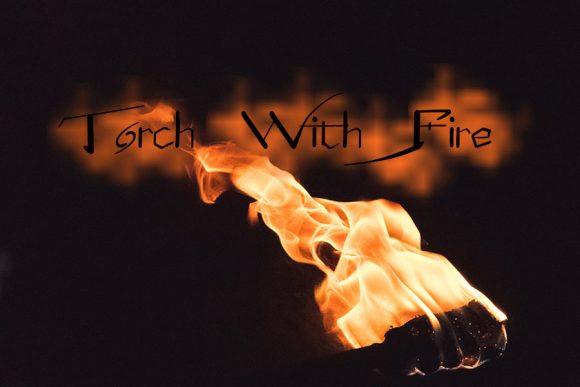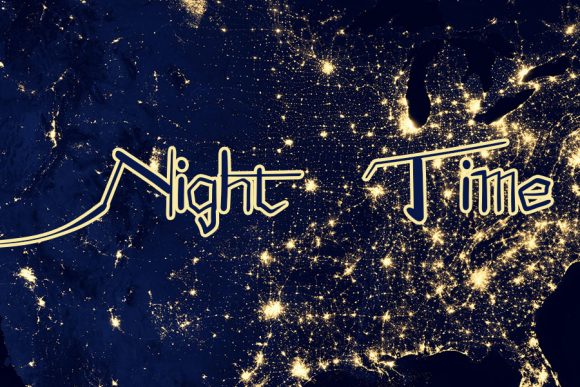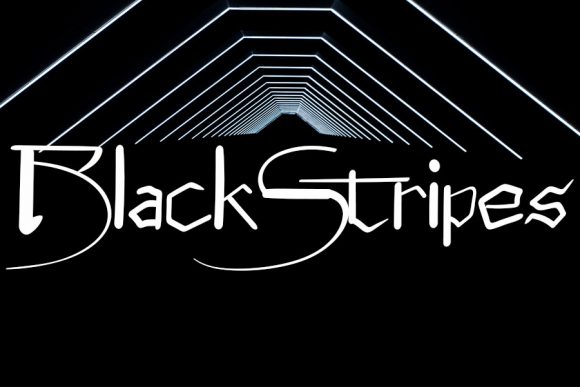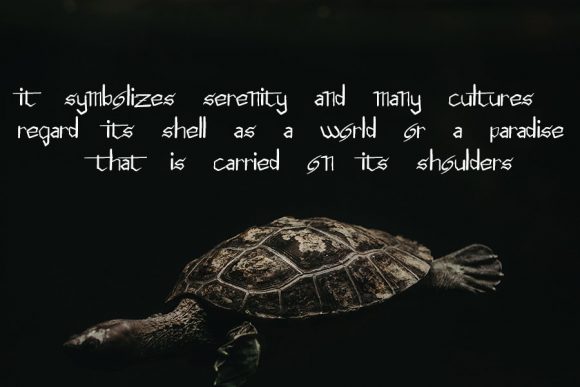
Introducing Earth Below Font: A Modern Display Font with a Genuine Touch
Are you tired of using the same old fonts for your designs? Look no further than Earth Below Font, an incredibly unique and modern display font that’s perfect for adding a touch of authenticity to your work. Whether you’re designing a website, creating business cards, or crafting other visual materials, Earth Below Font is the ideal choice.
What Makes Earth Below Font So Special?
Earth Below Font stands out from the crowd with its distinctive, hand-crafted design. The font features a modern, earthy feel that’s perfect for designers and crafters looking to add a touch of personality to their work. With its clean lines, subtle imperfections, and organic feel, Earth Below Font is sure to capture the attention of your audience.
Key Features of Earth Below Font
• Unique and Modern Design: Earth Below Font boasts a fresh, contemporary design that’s perfect for designers looking to stay ahead of the curve.
• Hand-Crafted with Love: Each letter has been carefully crafted to ensure a personal touch that’s hard to find in digital fonts.
• Highly Versatile: Use Earth Below Font for a wide range of design projects, from web designs and business cards to posters, flyers, and more.
• Easily Readable: Despite its unique design, Earth Below Font remains highly legible, making it perfect for use in a variety of contexts.
Tips and Tricks for Getting the Most Out of Earth Below Font
To really make Earth Below Font shine in your designs, try the following tips:
• Experiment with Font Sizes: Earth Below Font looks great at a range of font sizes, so don’t be afraid to experiment and find the perfect size for your design.
• Play with Color: The earthy feel of Earth Below Font lends itself perfectly to natural, earthy color schemes.
• Add Texture and Patterns: Consider adding texture or patterns to your design to give it an extra layer of depth and interest.
Who Can Benefit from Earth Below Font?
Earth Below Font is perfect for a wide range of designers and crafters, including:
• Graphic Designers: Add a touch of personality to your business cards, brochures, and other marketing materials.
• Web Designers: Use Earth Below Font to create stunning website headers, titles, and other design elements.
• Crafters and Artists: Add a personal touch to your handmade crafts, artwork, and other creative projects.